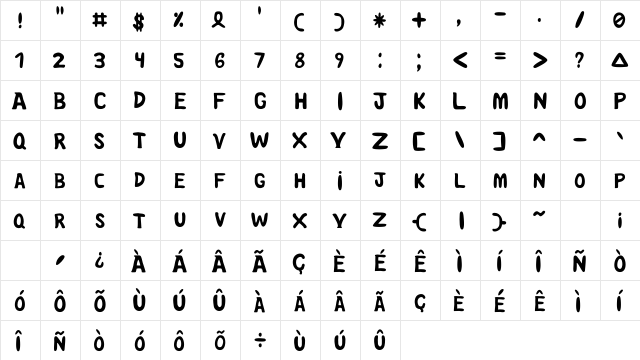
S˯ Roque regular
| Foundry | Vinicius Santos |
| Designer | Vinicius Santos |
Design Context for S˯ Roque Typeface
S˯ Roque is a composed and adaptable typeface that performs quietly and consistently across a wide range of design contexts.